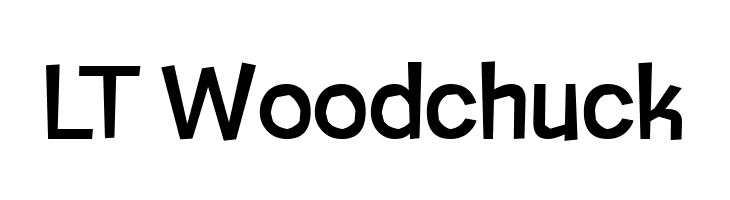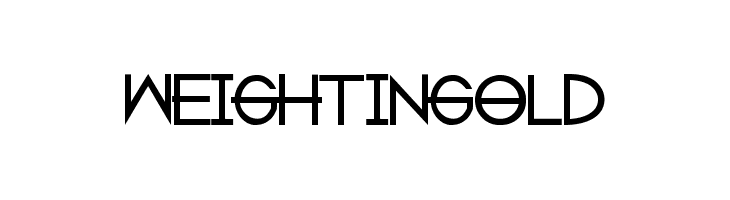
A bold, modern sans-serif font with clean, geometric lines.
A bold, expanded, and italicized font with a dynamic and modern style.
A bold serif font with strong strokes and a classic design.
A dynamic, cursive handwritten font with expressive strokes and a signature-like style.
A bold, expanded italic font with a dynamic and modern style.
A playful, handwritten font with dynamic strokes and a whimsical style.
A bold, playful font with exaggerated curves and lively character.
A modern, thin stencil font with clean lines and geometric shapes.